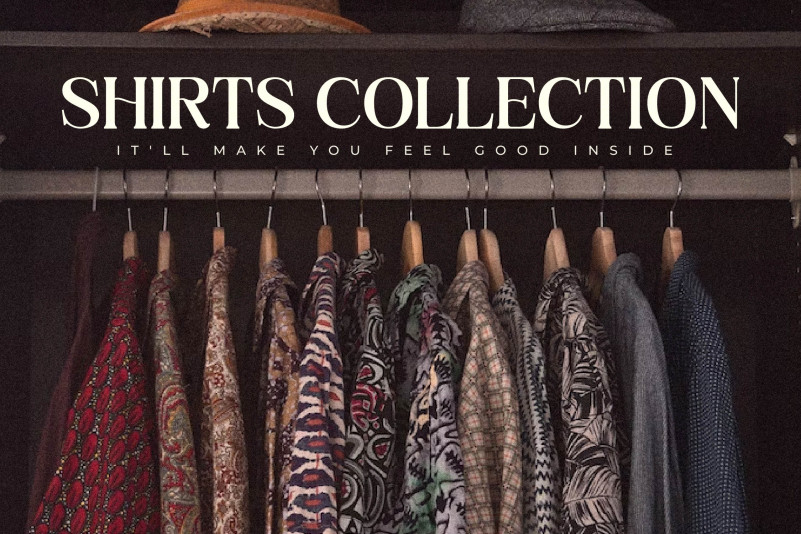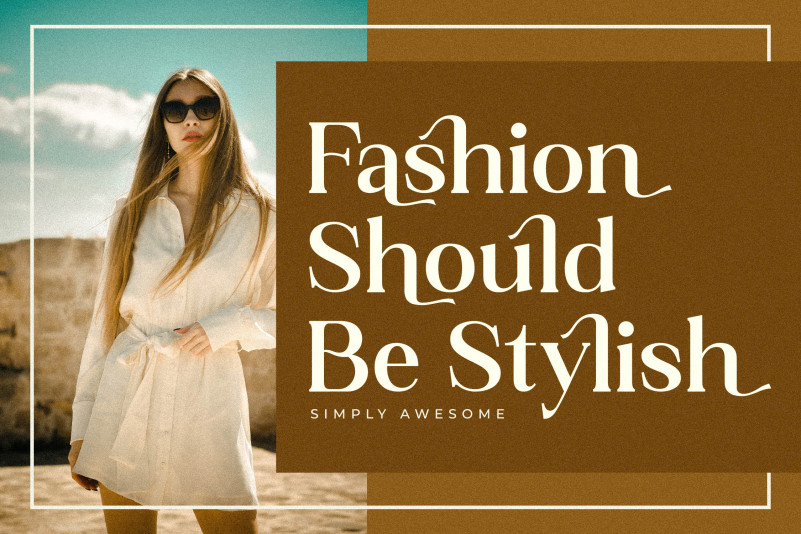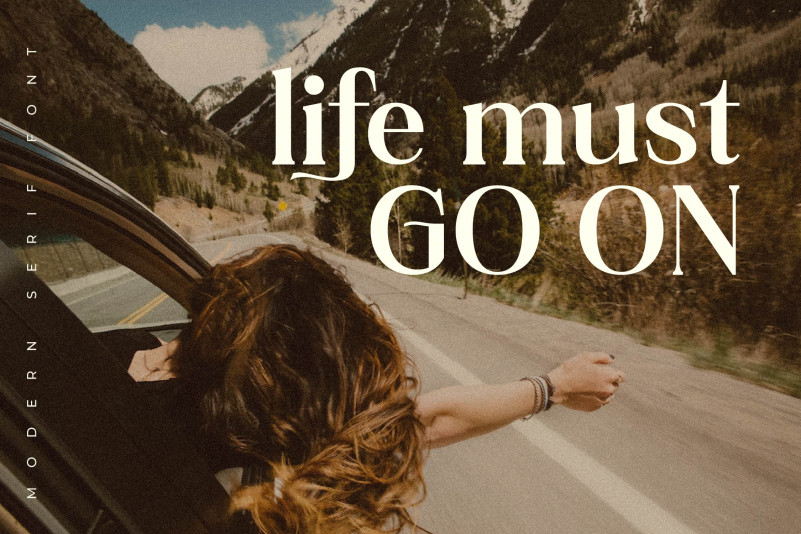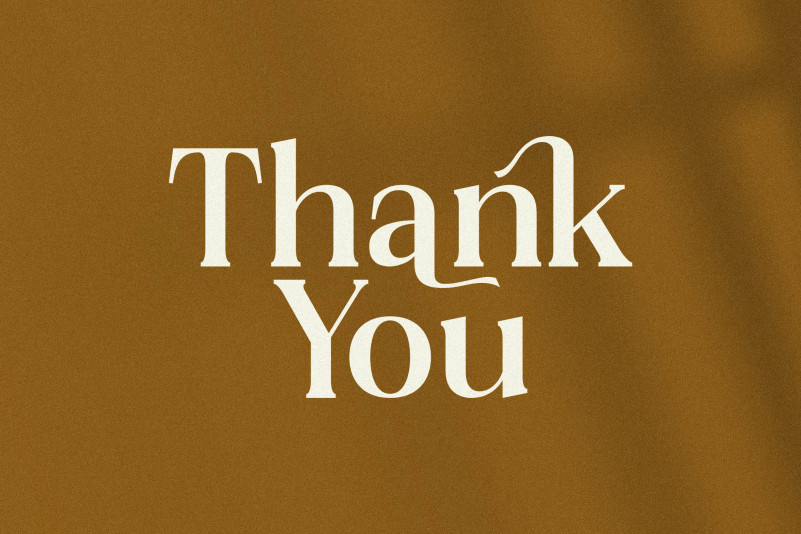
Rilenda Font
Rilenda Serif Font is a serif modern and classic typeface that has own unique style & modern look. This typeface is perfect for an elegant & luxury logo, book or movie title design, fashion brand, magazine, clothes, lettering, quotes, and so much more.